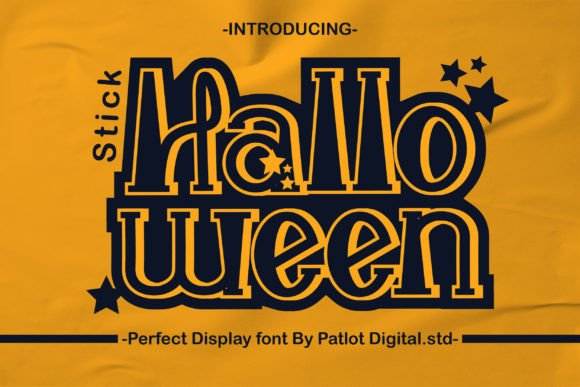
Introducing Halloween Stick Font - the ultimate display font that will cast a spellbinding charm over your creations!
Unleash the power of Halloween Stick, a display font crafted with meticulous attention to detail. Its playful and spooky character is perfect for conjuring up a captivating atmosphere in any design. Whether you're designing Halloween flyers, Easter greetings, or festive party decorations, Halloween Stick will add a touch of delightful spookiness to your projects.
Dive into a world of limitless creativity with Halloween Stick. Its versatility knows no bounds, making it the perfect choice for a wide range of projects. Let your imagination run wild as you craft eye-catching designs that will leave a lasting impression.
But Halloween Stick is more than just a font - it's an invitation to embark on a whimsical journey. Its charming curves and playful spirit will ignite your creativity and inspire you to create designs that are both enchanting and unforgettable.
So, why settle for ordinary fonts when you can embrace the extraordinary with Halloween Stick? Its unique and captivating character will transform your designs into works of art that will delight and enchant your audience.